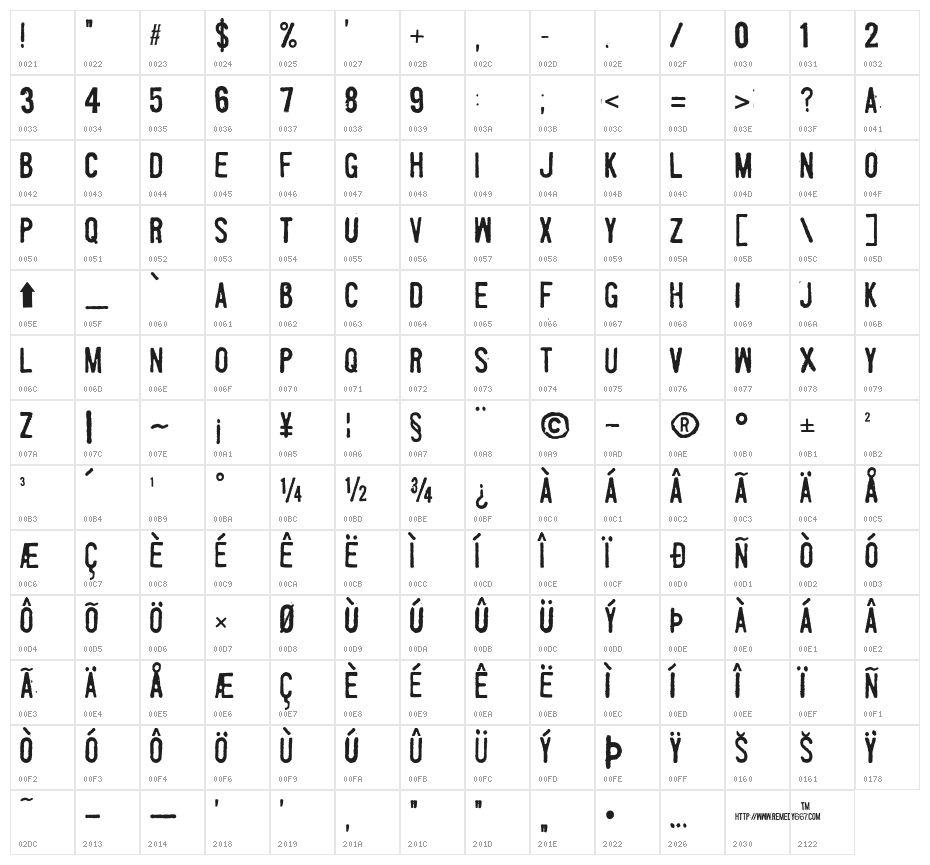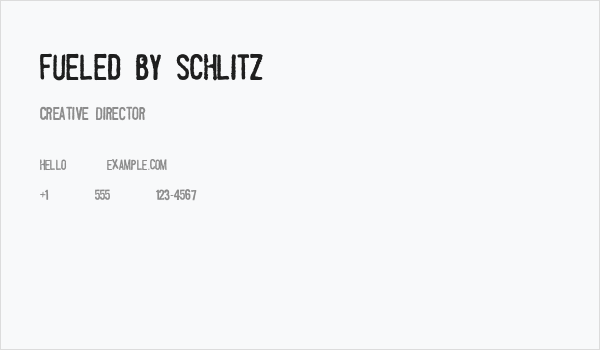
Fueled by Schlitz Font
Fueled by Schlitz Description
This font features a bold, distressed style with a vintage, worn appearance. The characters are uppercase and numerals, with a rough texture that gives them a hand-stamped look. The edges are irregular, adding to the rustic and rugged aesthetic. The font has a strong presence, making it suitable for designs that require a bold statement. The spacing between characters is relatively tight, which enhances its compact and impactful look. This font is ideal for projects that aim to convey a sense of authenticity and nostalgia, such as retro-themed posters, vintage branding, or rustic packaging designs.
| Proposed Projects | Retro-themed posters, vintage branding, rustic packaging designs. |